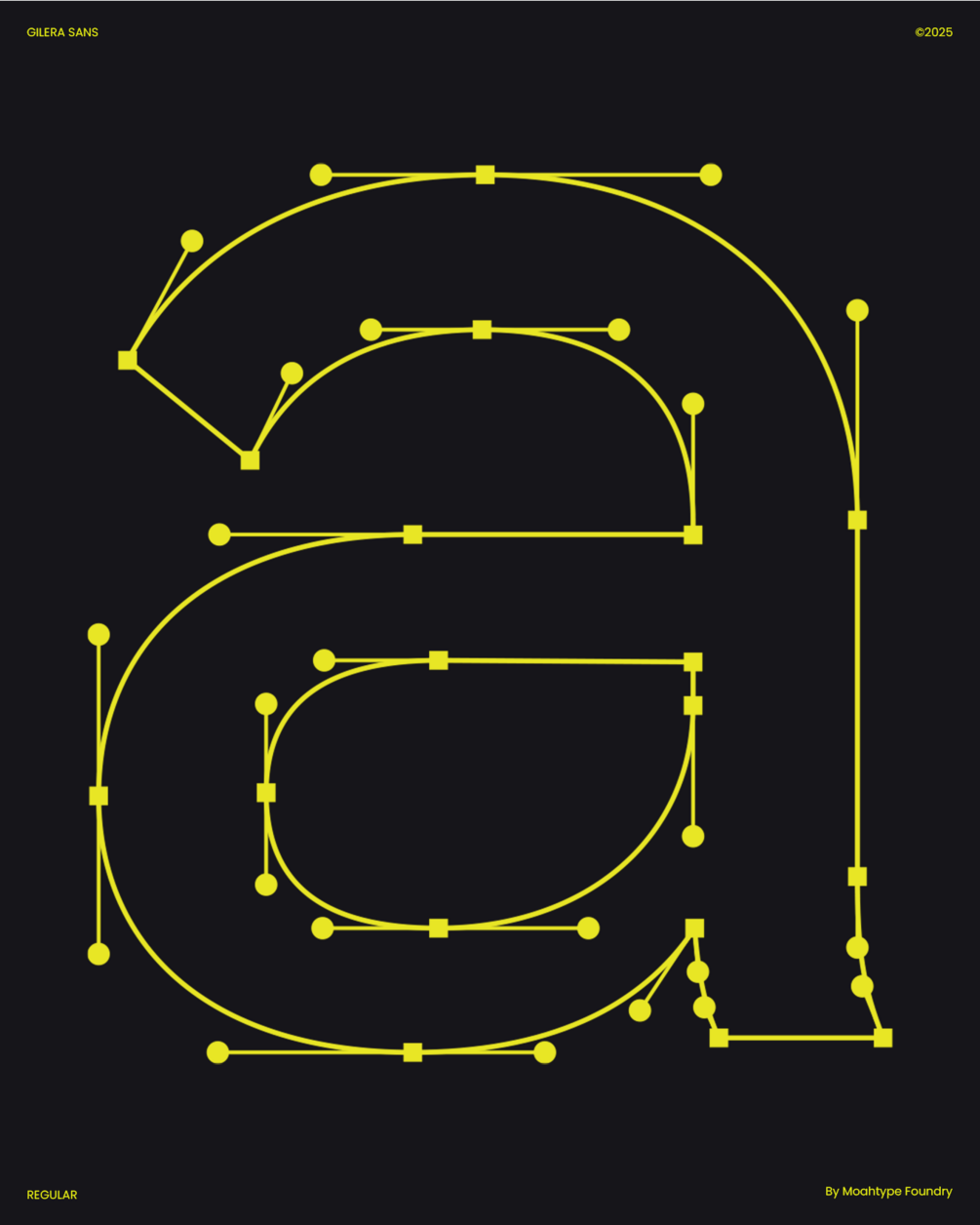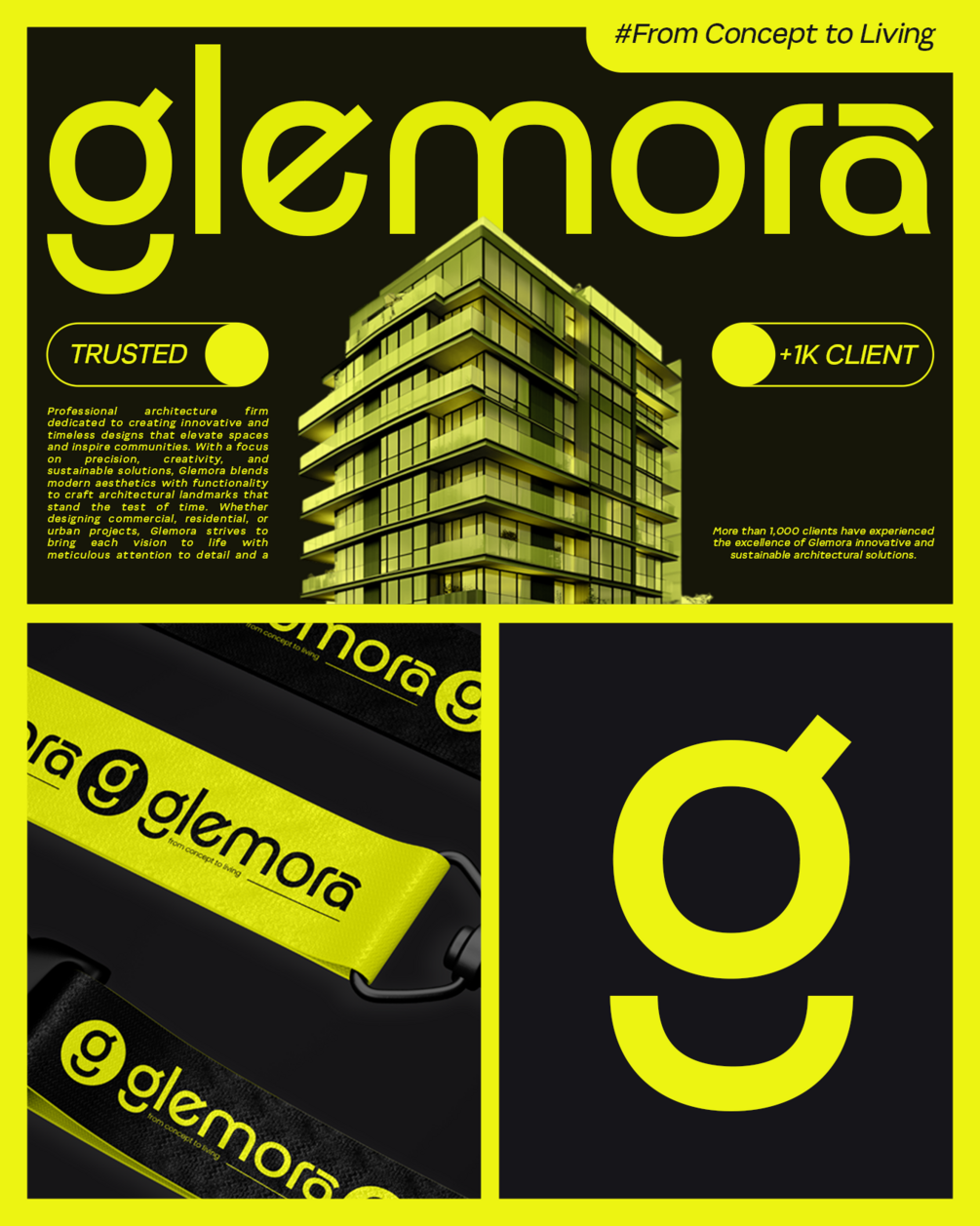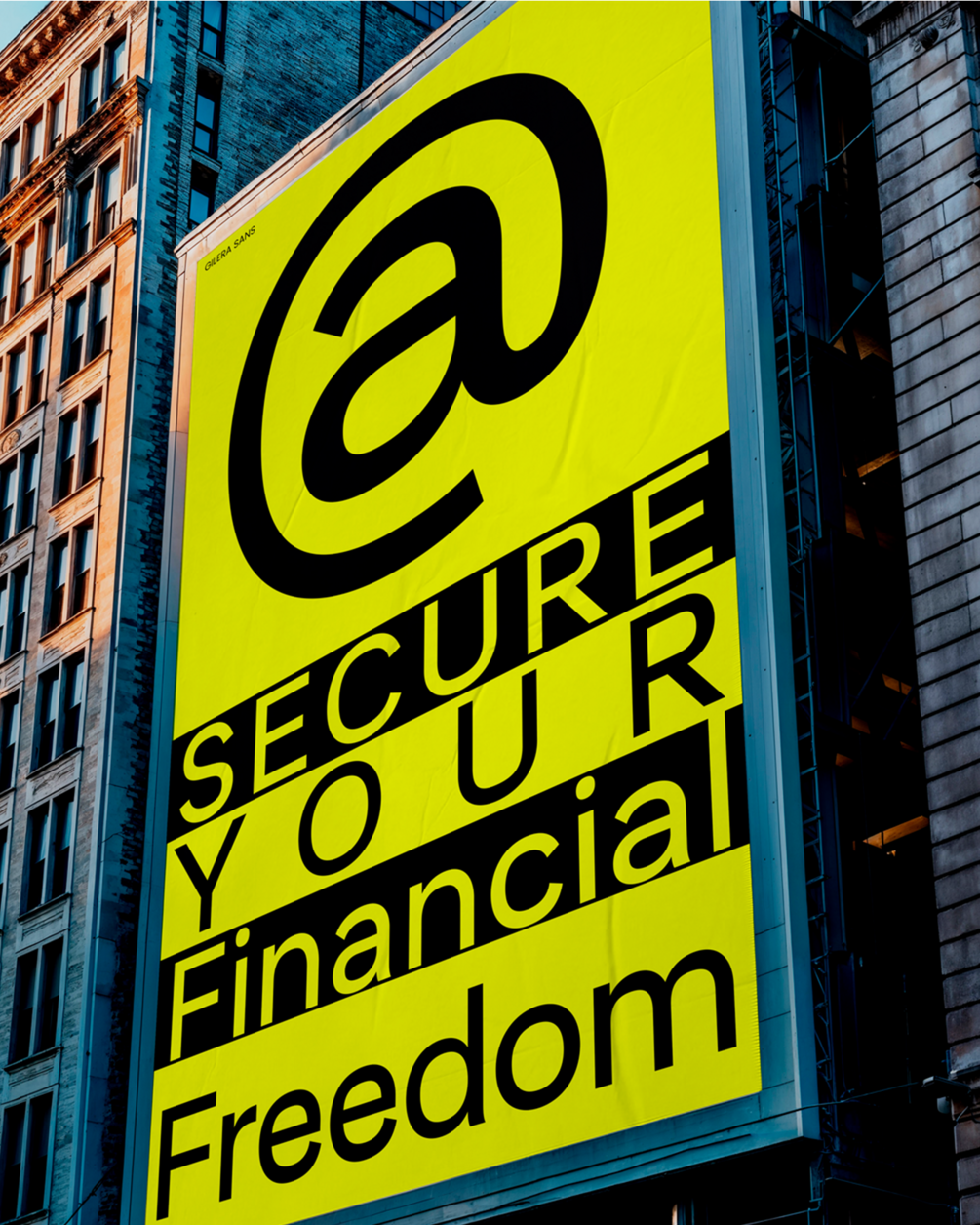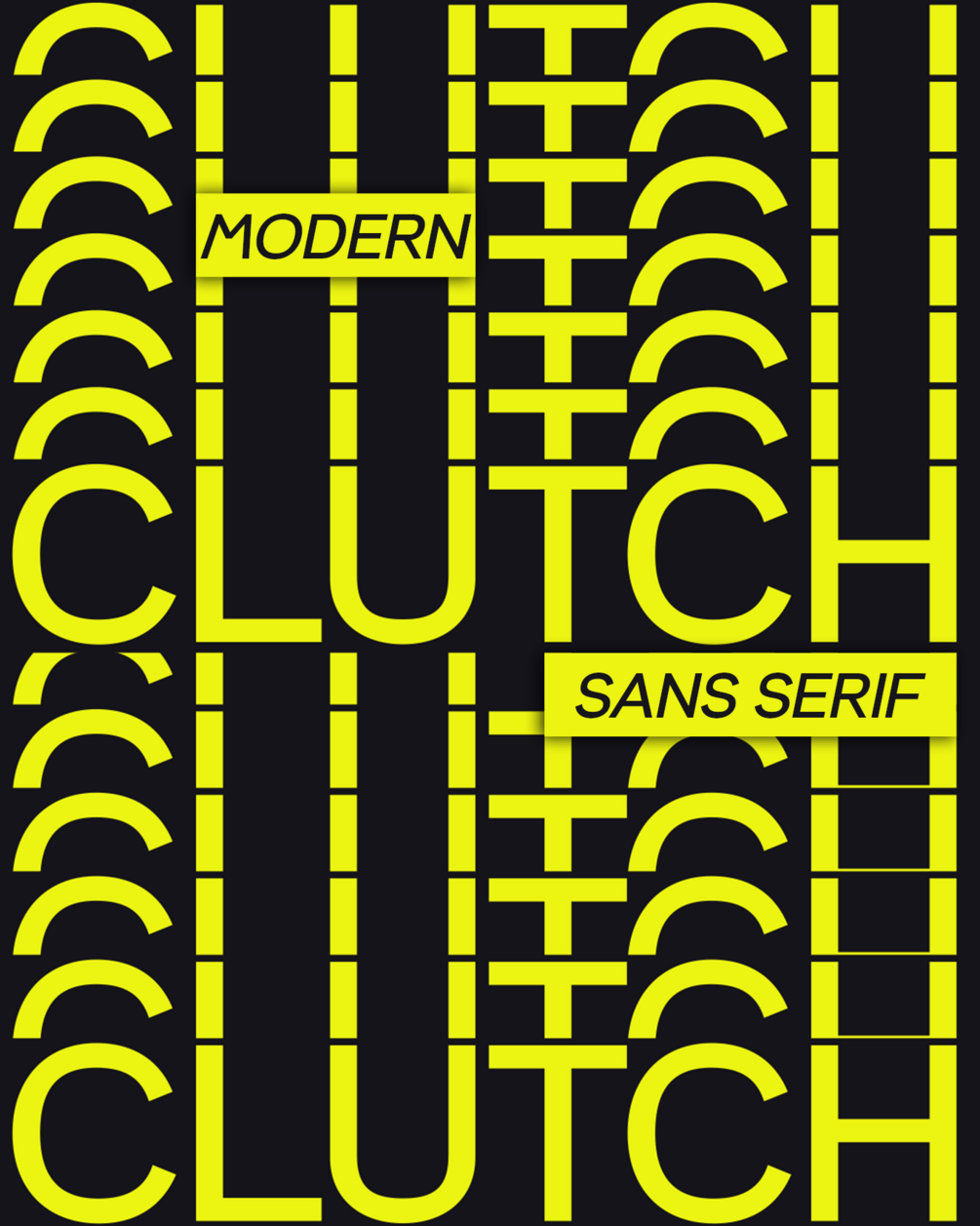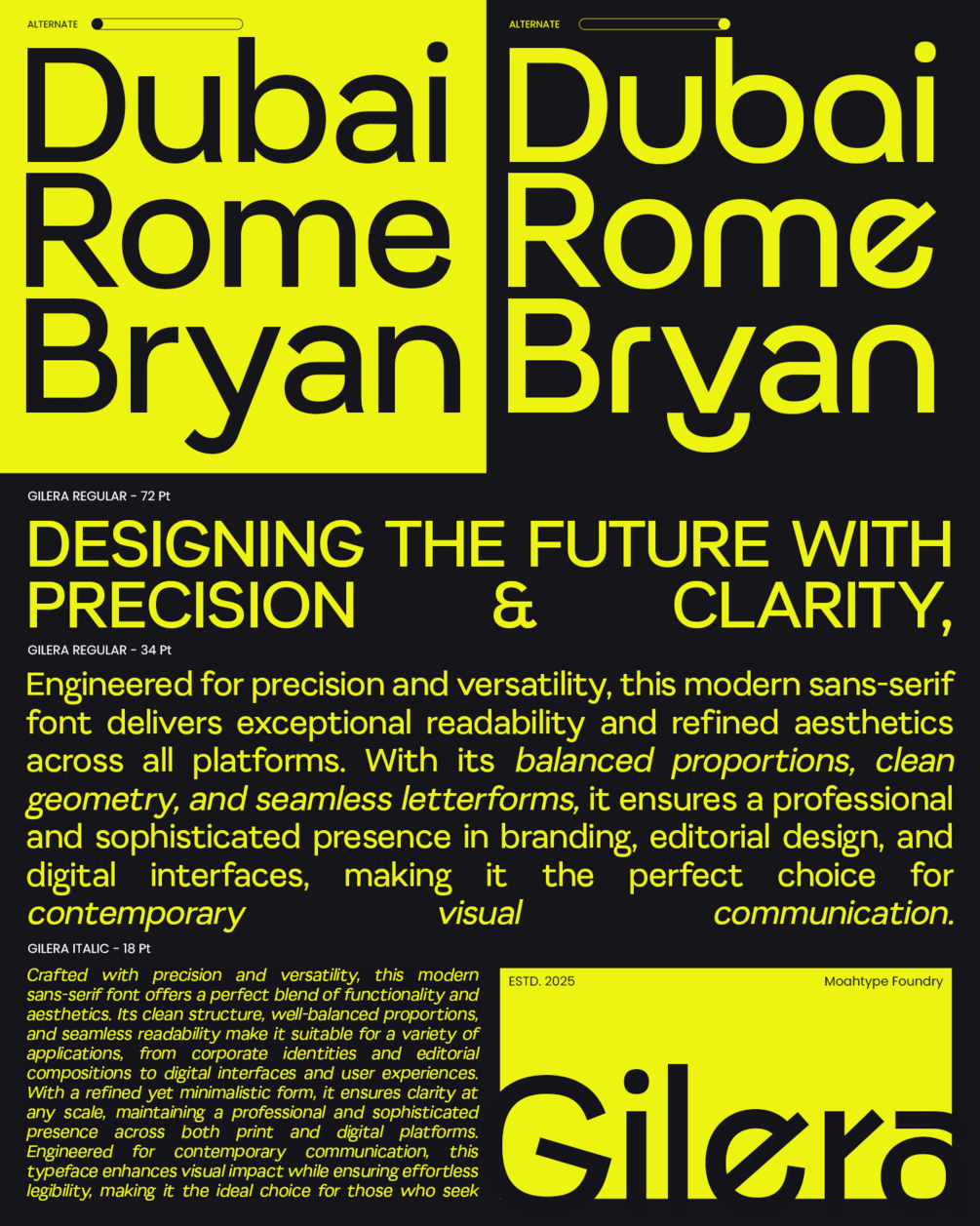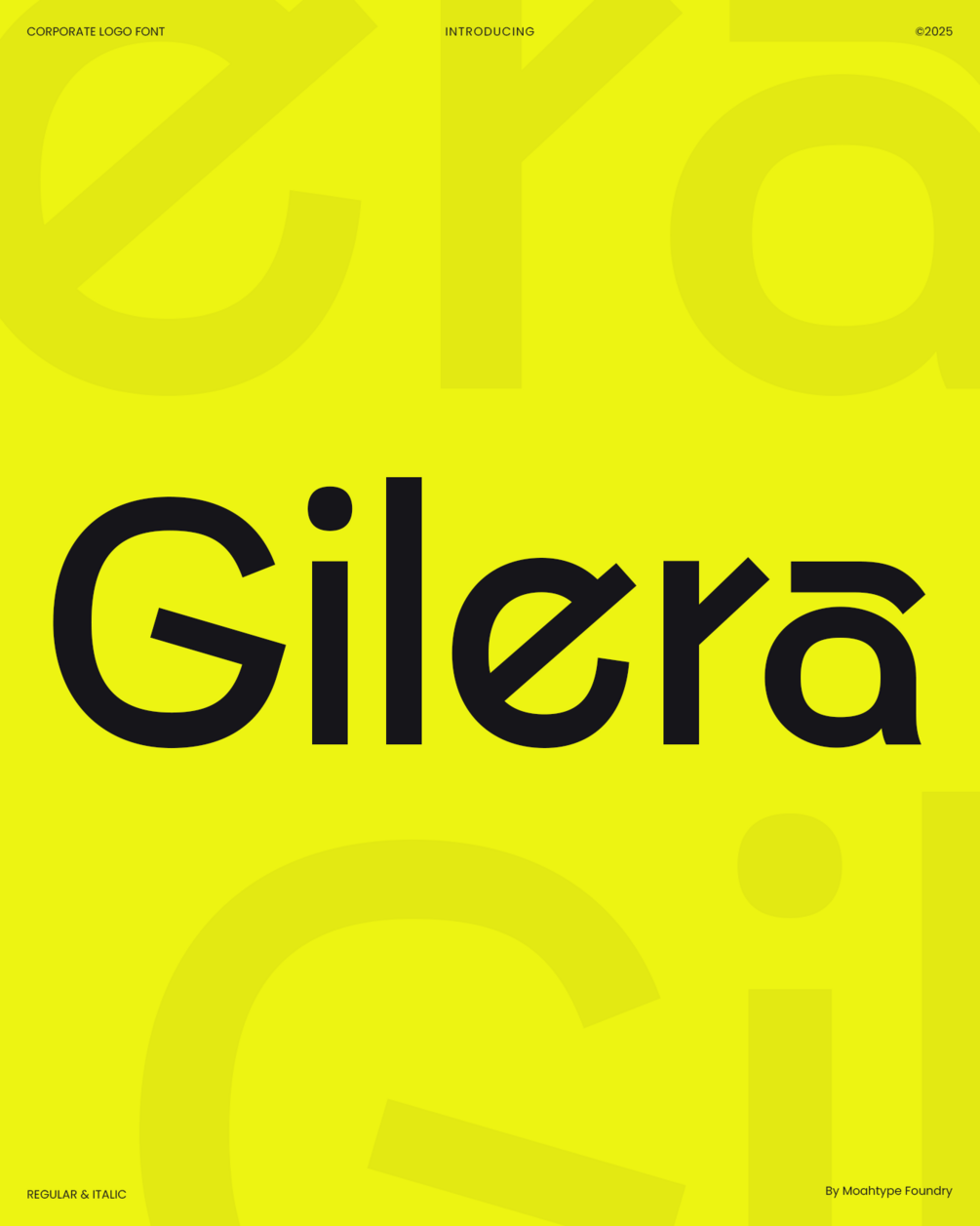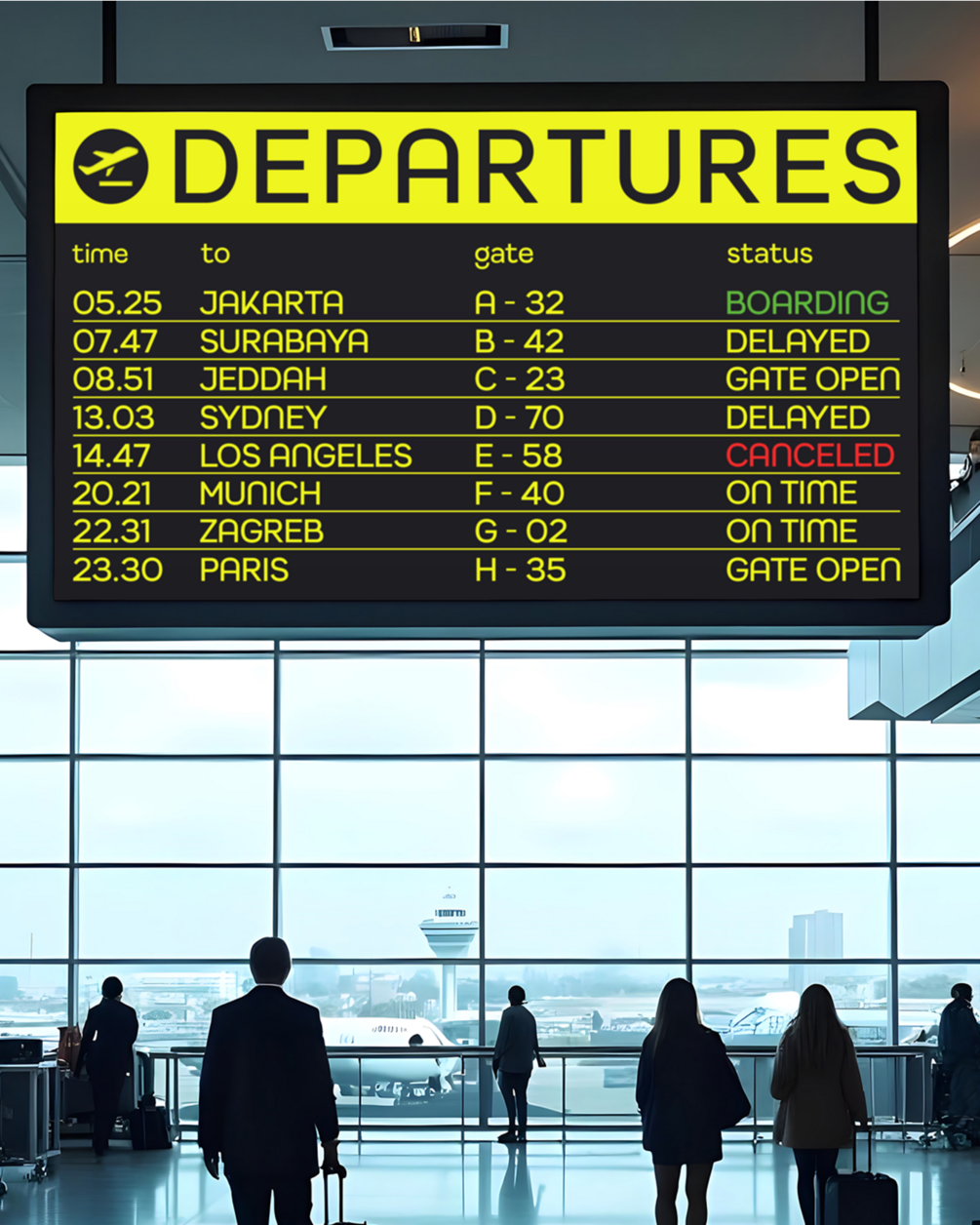
Gilera - Corporate Logo Font
Gilera – a Corporate Logo Font
Gilera is a refined sans serif typeface crafted for clarity, balance, and professional impact. Designed with clean lines and modern proportions, Gilera offers excellent legibility across digital and print mediums. Its geometric precision and subtle elegance make it ideal for branding, corporate identity, editorial layouts, and user interface design. With a versatile structure and contemporary feel, Gilera empowers brands to communicate with confidence, simplicity, and strength.